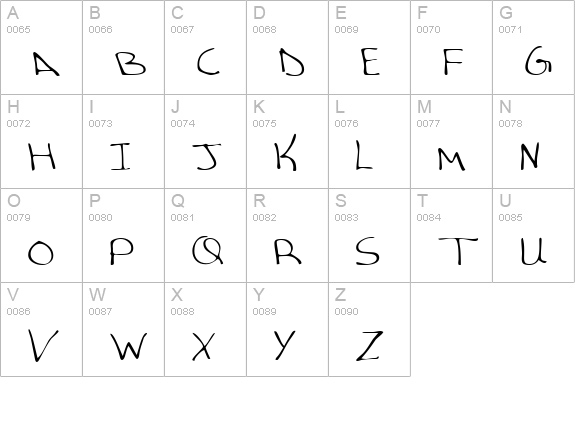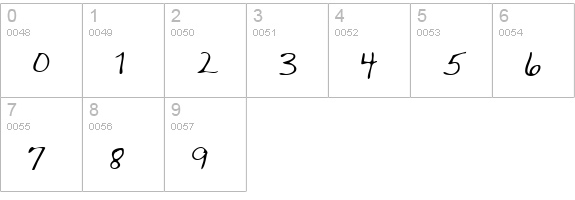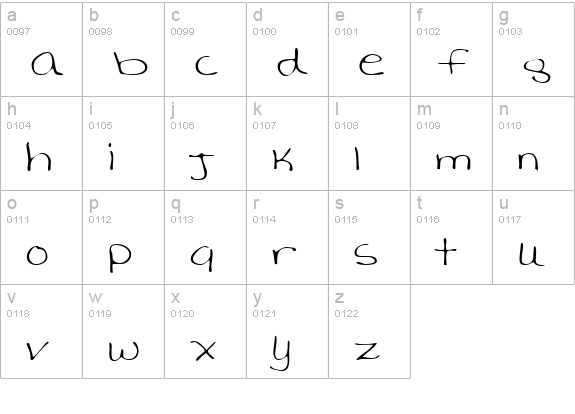
AverysHand Regular is the standard, neutral variant in the AverysHand typeface family \xE2\x80\x94 well suited to general body text, paragraphs, and standard typographic work.
AverysHand Regular font is a delightful and whimsical typeface that exudes charm and playfulness. With its handwritten style and unique character design, AverysHand Regular is perfect for adding a personal touch to any design project. Whether you're creating greeting cards, invitations, or social media graphics, this font will bring a touch of warmth and individuality to your work. Best of all, AverysHand Regular is available for free download at FontsMarket.com. This means you can easily access this beautiful font and start using it in your projects right away. Don't miss out on the opportunity to add AverysHand Regular to your font collection and elevate your designs with its charming appeal. Download it today and let your creativity flourish with this fantastic free font!